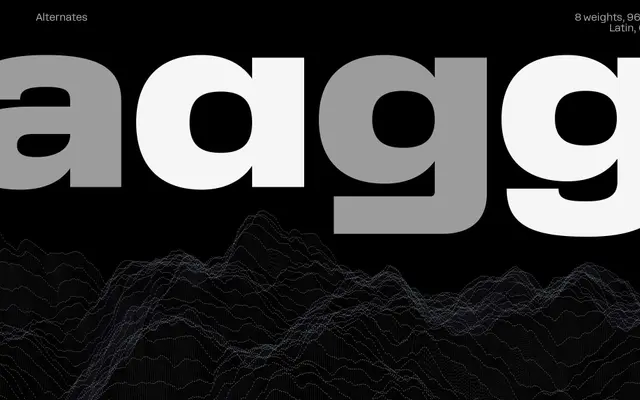
A large grotesque sans family spanning six widths and eight weights, built for flexible deployment across print and screen contexts.
With five distinct width subfamilies running from Ultra Condensed through to Extended, the family totals well over eighty styles, each accompanied by an italic. The weight range covers Thin to Extrabold throughout every width, giving designers consistent tools across tight newspaper columns and broad display work alike. Its neutral grotesque character keeps it versatile rather than distinctive.
A contemporary grotesque sans spanning five widths from Ultra Condensed to Extended, with no visible stylistic quirks that would push it into humanist or geometric territory.